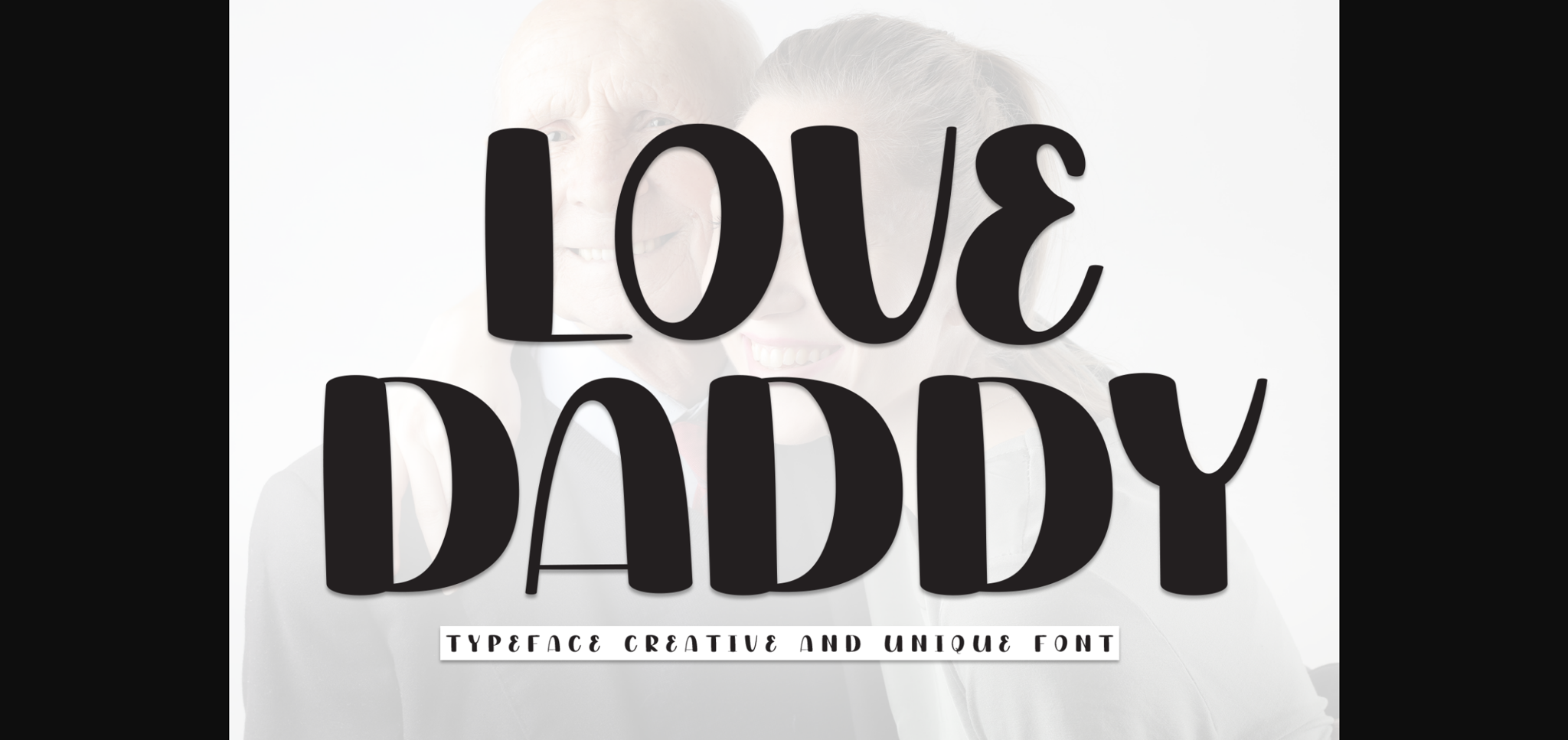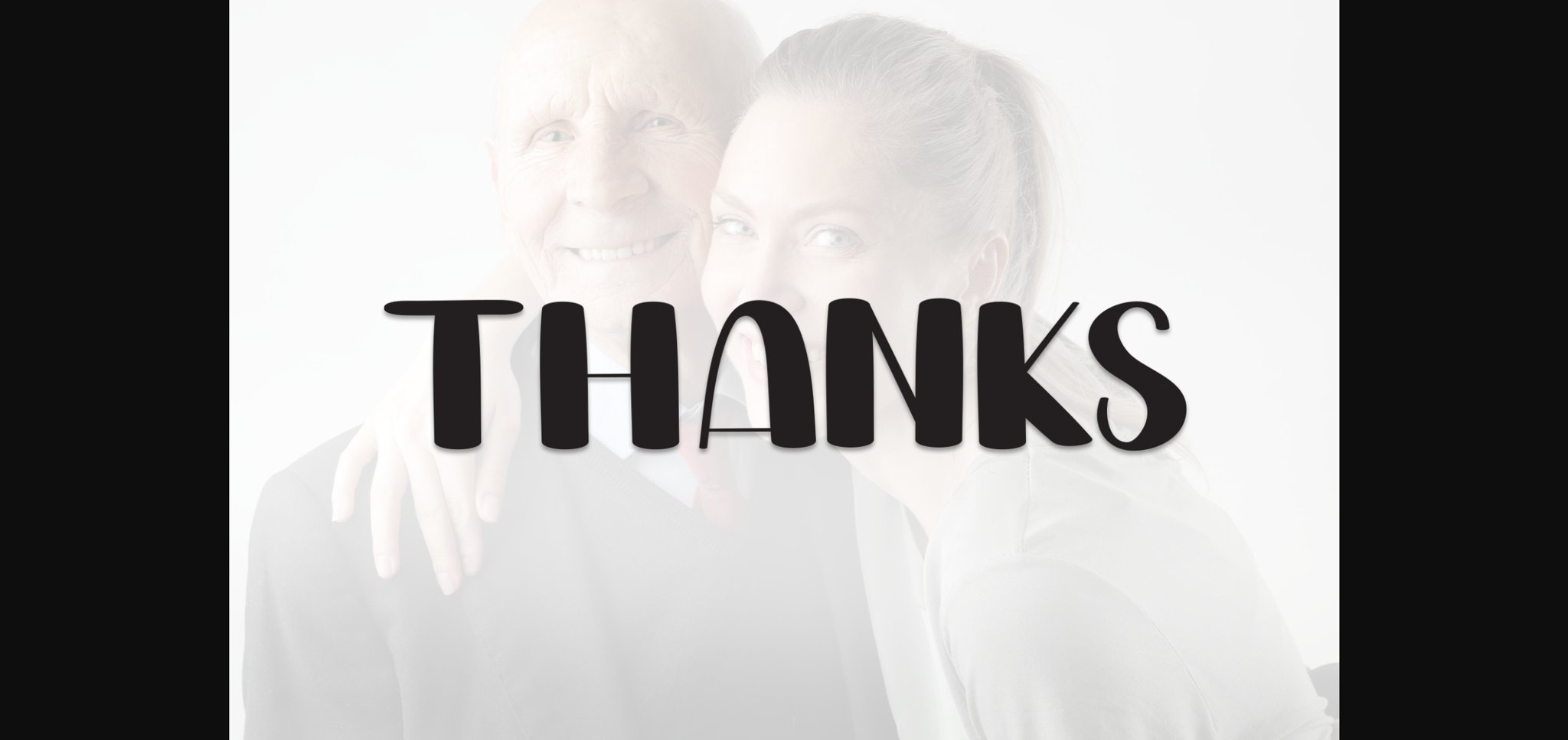
About Love Daddy Font
Love Daddy is a sweet and friendly sans-serif font. Cute yet versatile, this font is ideal for writing wedding invitations, cards, or any other design that might need a fresh touch!